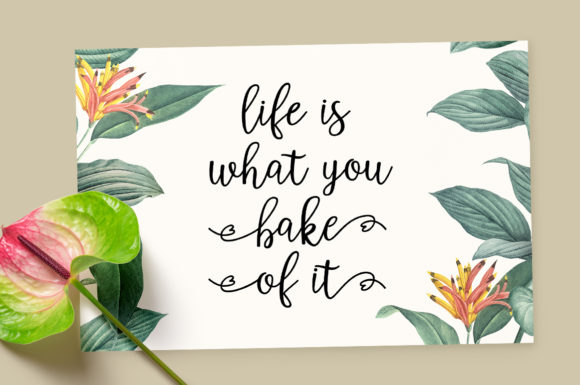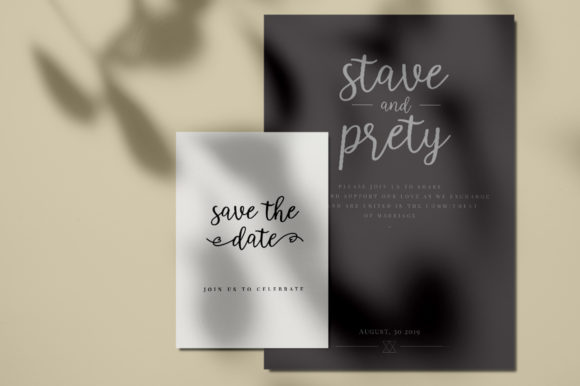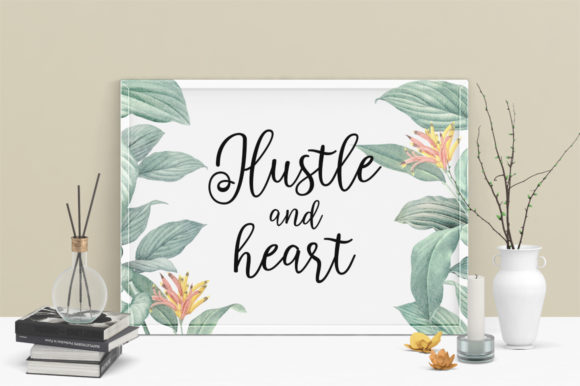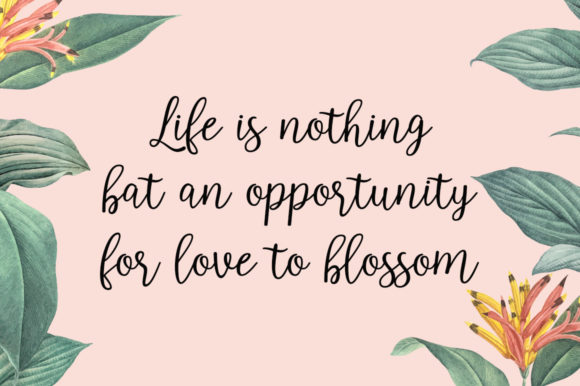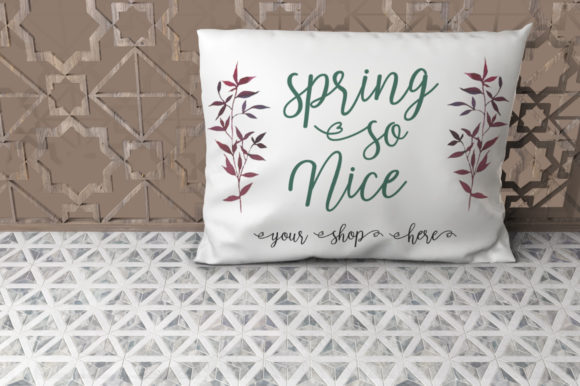
HomeScript FontsMishaela Script Font Script Fonts Mishaela Script Font FacebookXPinterestWhatsApp Mishaela Script Font Poster 2 Mishaela Script Font Poster 3 Mishaela Script Font Poster 4 Mishaela Script Font Poster 5 Mishaela Script Font Poster 6 About Mishaela Script Font Mishaela is a cute script with an authentic vibe. Fall in love with its contemporary look. DOWNLOAD NOW People also explored Spring Day Party Font Cartline Brush Font Lovely Sister Font Mefista Font Growland Font The Sacrad Font Font Arthur Taniya Font Carlitto Font Chilli 346 0 TagsMishaela Script Font Previous articleThe Phamelo FontNext articleMaghrib Font LEAVE A REPLY Cancel reply Comment: Please enter your comment! Name:* Please enter your name here Email:* You have entered an incorrect email address! Please enter your email address here Website: Save my name, email, and website in this browser for the next time I comment. Personal Use Free Mueband Personal Use Free Read more about this font Starter Personal Use Free Read more about this font Love Ya Personal Use Free Read more about this font Sileighty Personal Use Free Read more about this font BLOG Modern Sans-Serif Fonts That Brands Love in 2025 In 2025, modern sans-serif fonts remain a top choice for brands looking to project clarity, professionalism, and... Elegant Wedding Invitation Fonts – Handwritten & Script Fonts How to Cut Any Font on Cricut: Convert a Font to SVG (Free) Best Fonts for T-Shirt Design – Top 2025 Picks